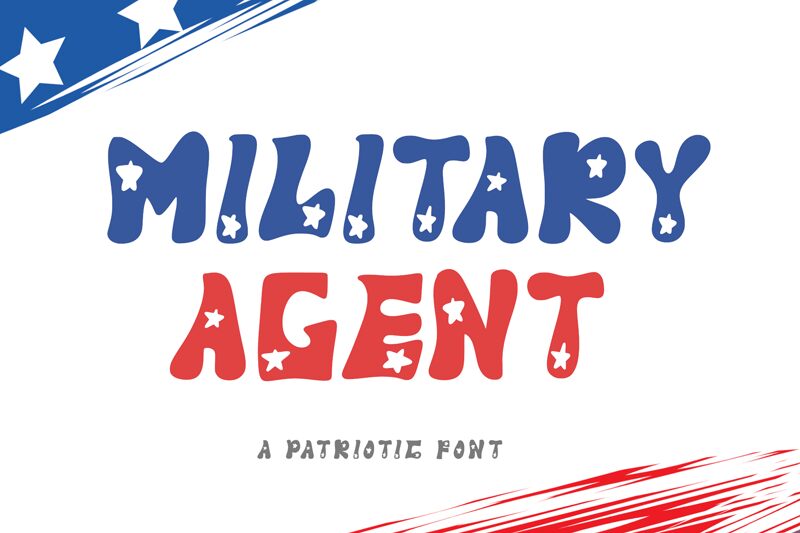
Military Agent
Military Agent font, designed by Yoga Letter, is a bold and decorative display typeface that captivates with its playful yet assertive character. The whimsical design features rounded shapes and charming star accents, creating an engaging visual that stands out in any context. Its robust presence exudes confidence, making it a striking choice for projects that aim to grab attention.
Ideal for use in posters, vibrant branding, or children’s products, Military Agent effortlessly balances fun with impact. This font can infuse energy into messages while maintaining clarity-a perfect fit for dynamic designs seeking a memorable aesthetic. Whether creating eye-catching headlines or captivating logos, the Military Agent font showcases distinctive style and versatility that elevates any creative endeavor.